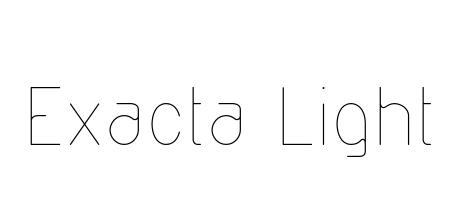
Exacta Light
Exacta Light: A font of airy elegance, Exacta Light dances across the page with a delicate grace. Its clean lines and subtle curves evoke a sense of effortless sophistication, perfect for projects needing a touch of understated refinement. A whisper of modernity, it''s both legible and lovely.